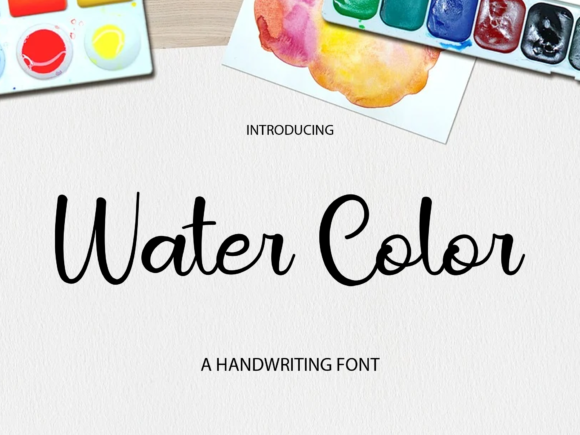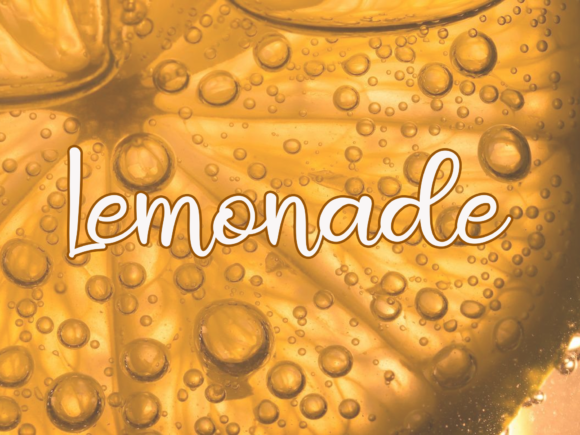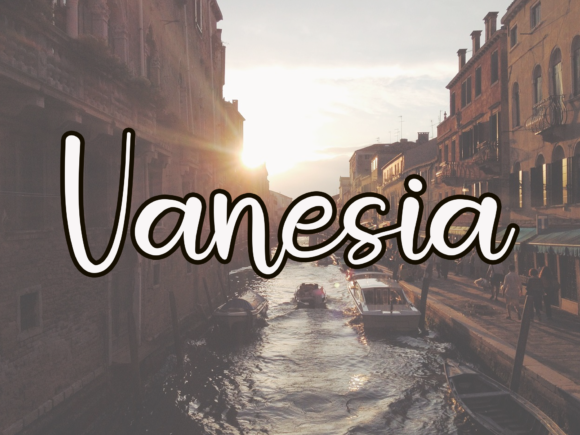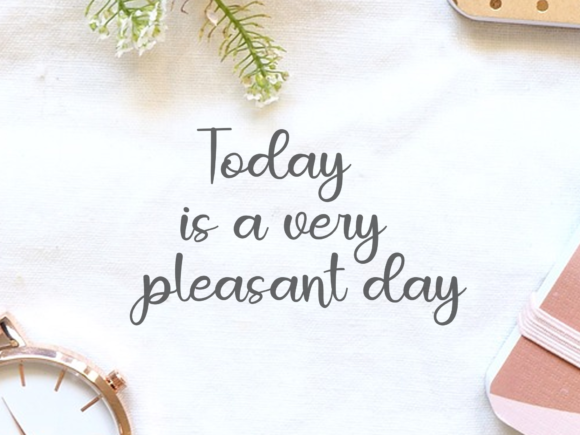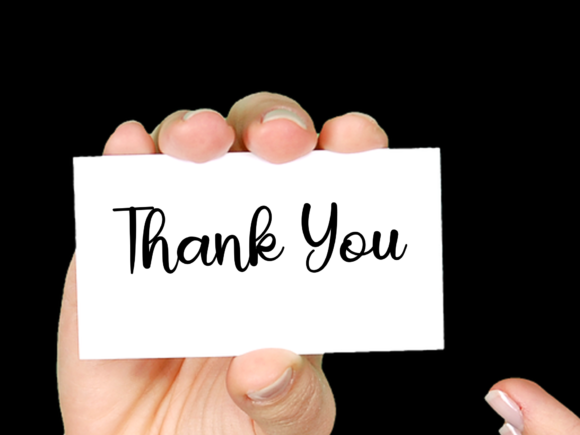
Water Color Font
About Water Color Font
Introducing Water Color, a unique and round-lettered handwritten font meticulously crafted to deliver distinct and desired results. This font stands out as a versatile choice, suitable for writing titles, invitations, letters, and a variety of other products, offering a creative and eye-catching touch to your designs.
Water Color’s uniqueness lies in its rounded letterforms, bringing a playful and artistic quality to your text. Whether you’re creating eye-catching titles or adding a personal touch to invitations and letters, this font is designed to enhance the visual appeal of your projects.
Imagine Water Color as a creative tool in your design arsenal, allowing you to infuse a touch of handmade charm into your work. Its versatility makes it suitable for a range of applications, providing a distinctive look that sets your titles and text apart from the ordinary.
In summary, Water Color is more than just a font; it’s a unique and round-lettered handwritten script that adds a creative flair to your titles, invitations, letters, and various other design projects. With its carefully crafted design, Water Color stands as a delightful choice for designers seeking a font that brings a touch of artistry and uniqueness to their creations.